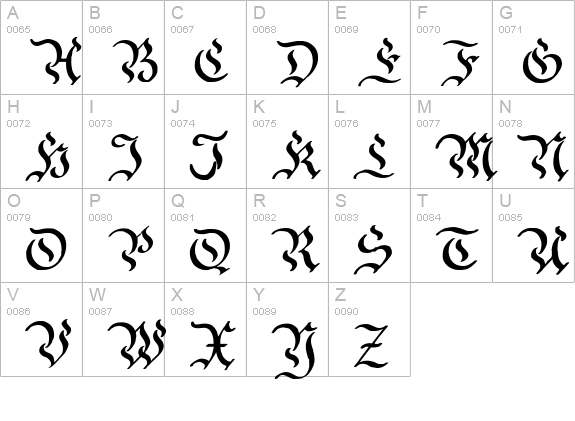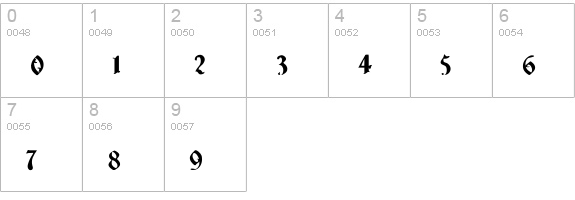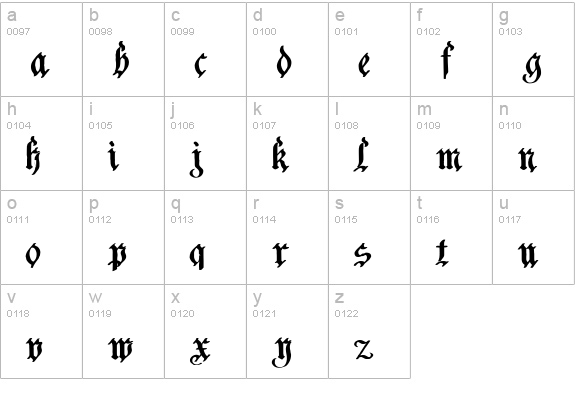
Charterwell Bold Font Details
Charterwell Bold is a strong, high-contrast variant in the Charterwell typeface family \xE2\x80\x94 well suited to headlines, attention-grabbing titles, and strong calls-to-action.
Charterwell Bold font exudes elegance and sophistication with its strong yet refined letterforms. This versatile and timeless typeface is perfect for a wide range of design projects, from branding to editorial layouts. The bold weight of Charterwell adds a touch of confidence and modernity to any text or headline. What sets Charterwell Bold apart is not only its striking design, but also the fact that it is available for free download at FontsMarket.com. This means that designers and creatives can easily access this premium font without any cost, making it a valuable addition to their font library. Whether you're working on a print project or a digital design, Charterwell Bold will elevate your work with its distinctive style and legibility. Download it today and make a bold statement with your typography choices.